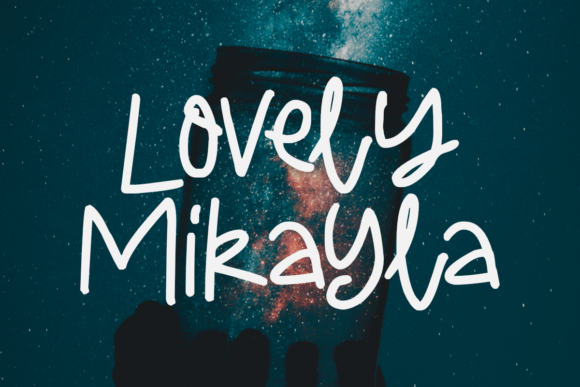
Journey into the fanciful world of Lovely Mikayla Font, a captivating script font family that will enchant your designs with its playful charm. Brimming with personality and inspired by the whimsical flair of handwritten notes, Lovely Mikayla is a font that speaks to the heart. Its unique and natural-looking characters dance across the page with an effortless grace, evoking a sense of authenticity and artistry.
Designed with versatility in mind, Lovely Mikayla Font is a perfect match for a myriad of creative projects. From enchanting posters that capture the imagination to heartfelt quotes that touch the soul, this font adds a touch of magic to every word. Unleash your creativity and let your designs flourish with the boundless possibilities of Lovely Mikayla Font.
Step into a world where imagination reigns supreme, where words become art, and every letter tells a story. Let Lovely Mikayla Font be your guide as you craft designs that resonate with emotion and captivate the senses.